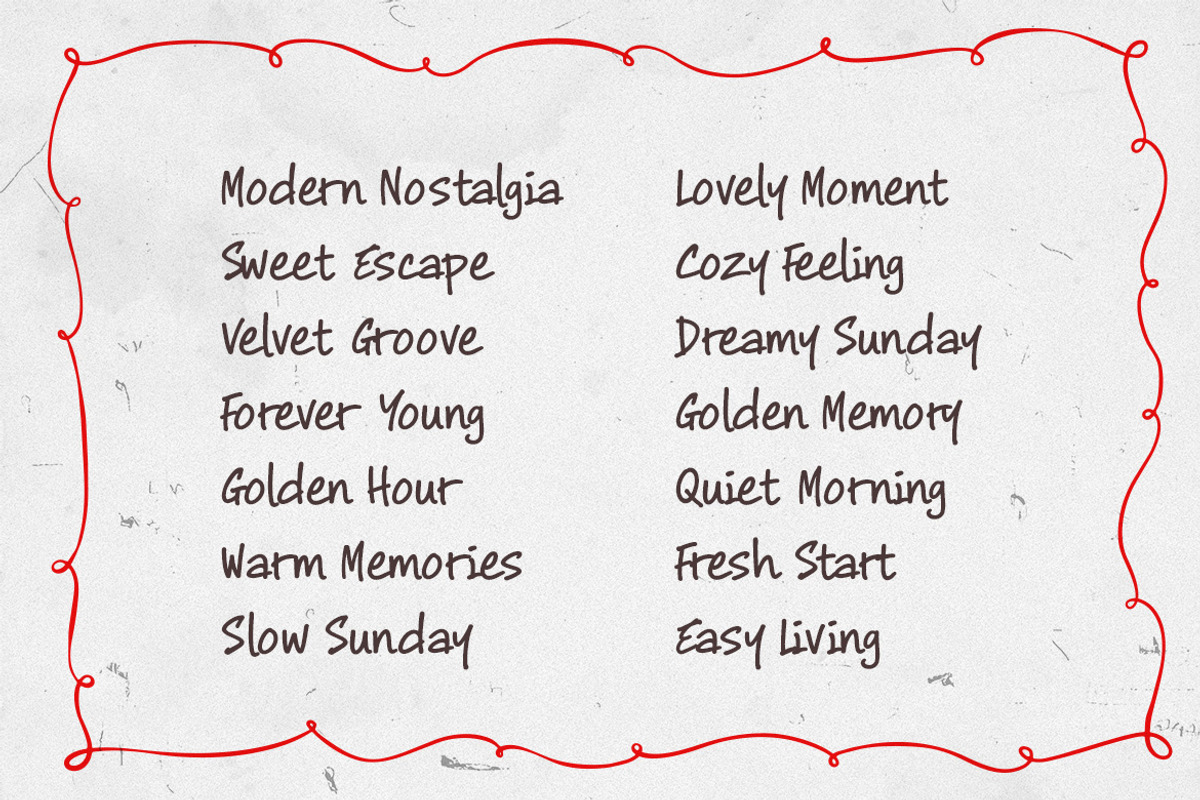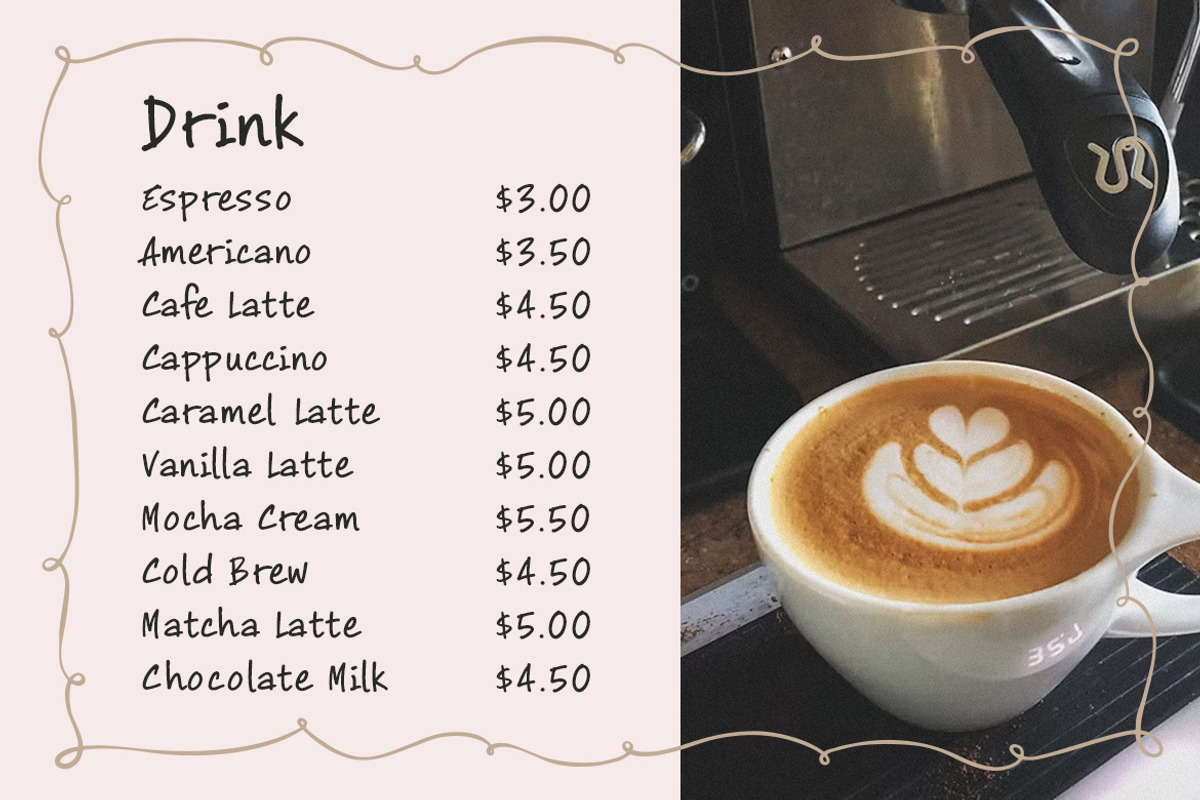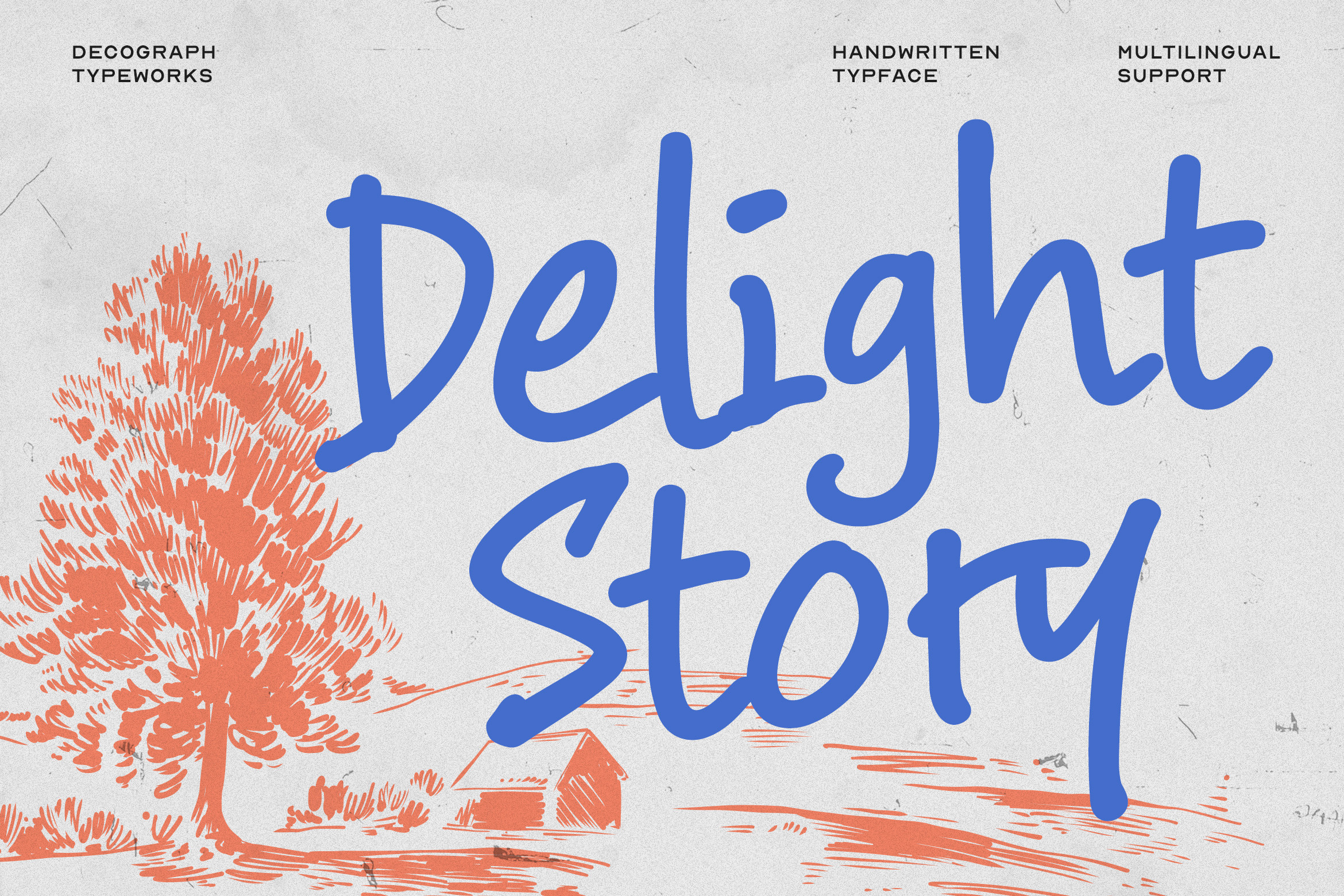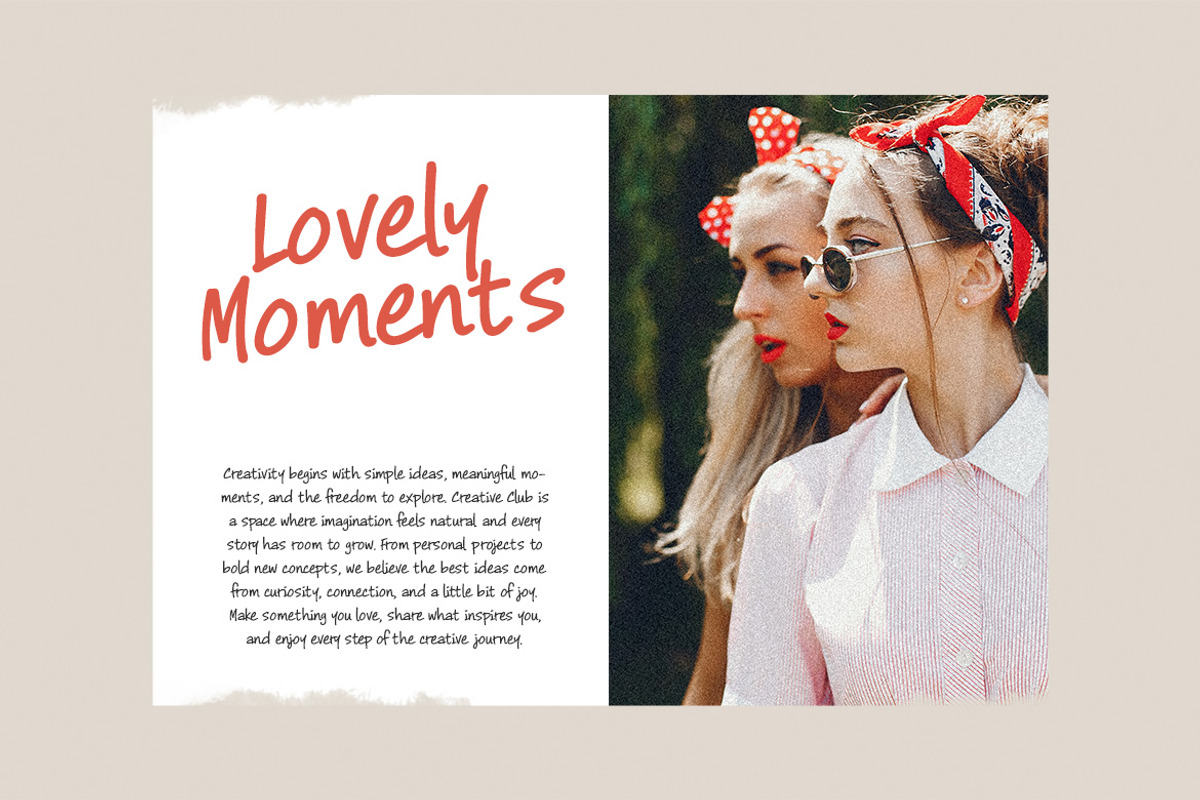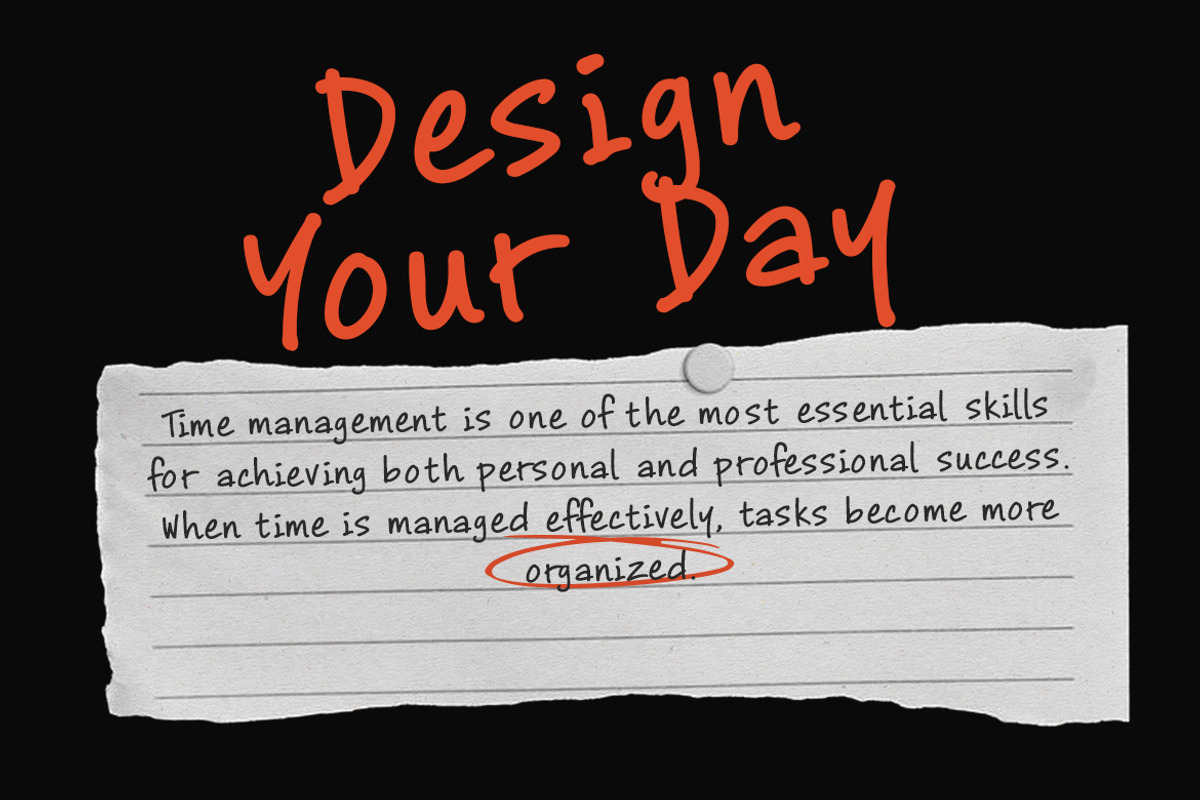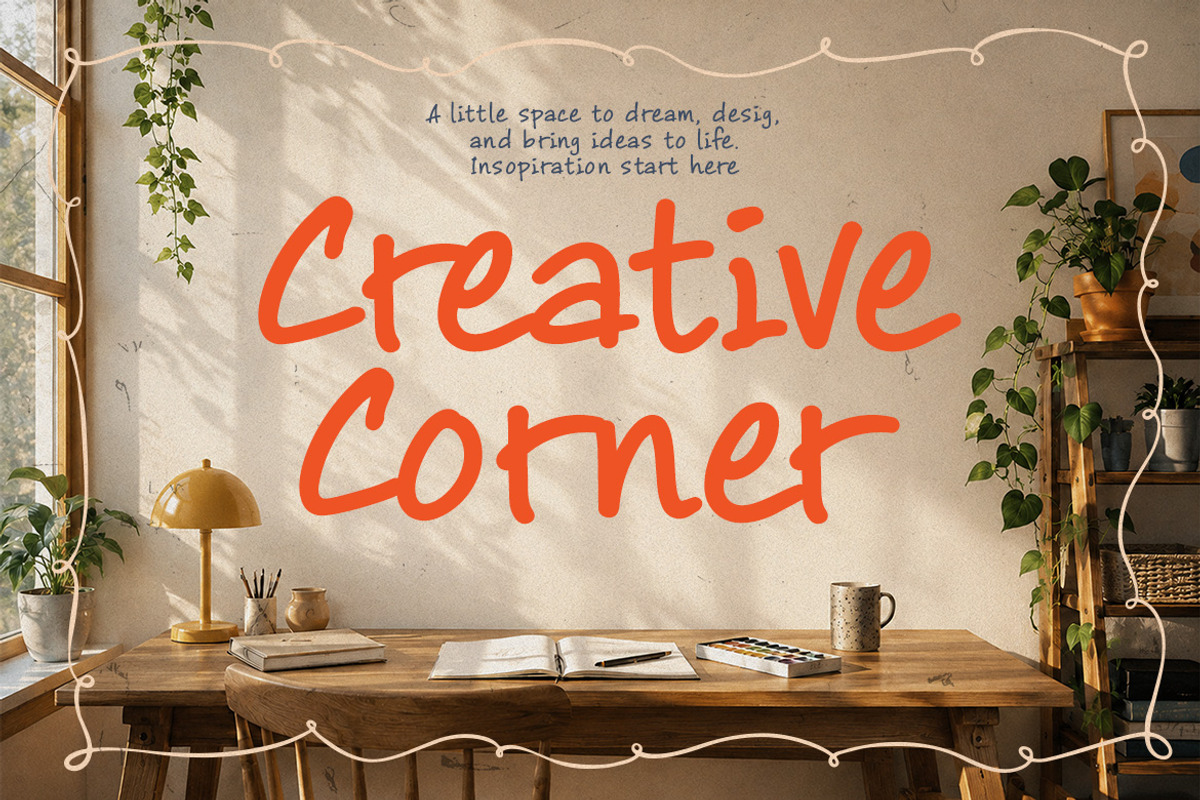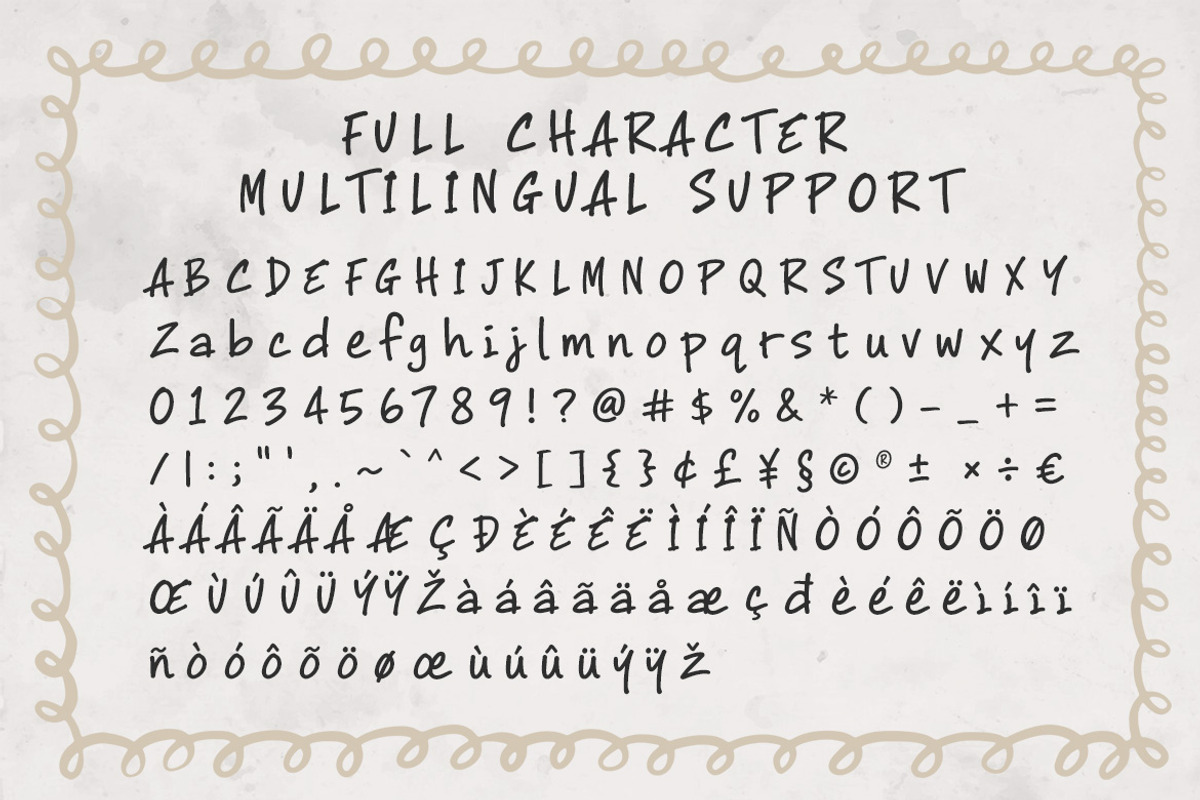
Delight Story – Handwritten Font
Delight Story is a casual handwritten display typeface that combines smooth rounded strokes with loose, naturally constructed letterforms, featuring open curves, simple terminals, and subtle variations in proportion that create an approachable handwritten rhythm. Its clean monoline appearance keeps the lettering easy to read while preserving a relaxed and personal character. Designed for branding, packaging, cafe graphics, editorial headlines, posters, stationery, and social media, Delight Story works especially well for designs that need an informal human touch—delivering a visual personality that feels friendly, cheerful, contemporary, and naturally expressive.
Smooth Kerning